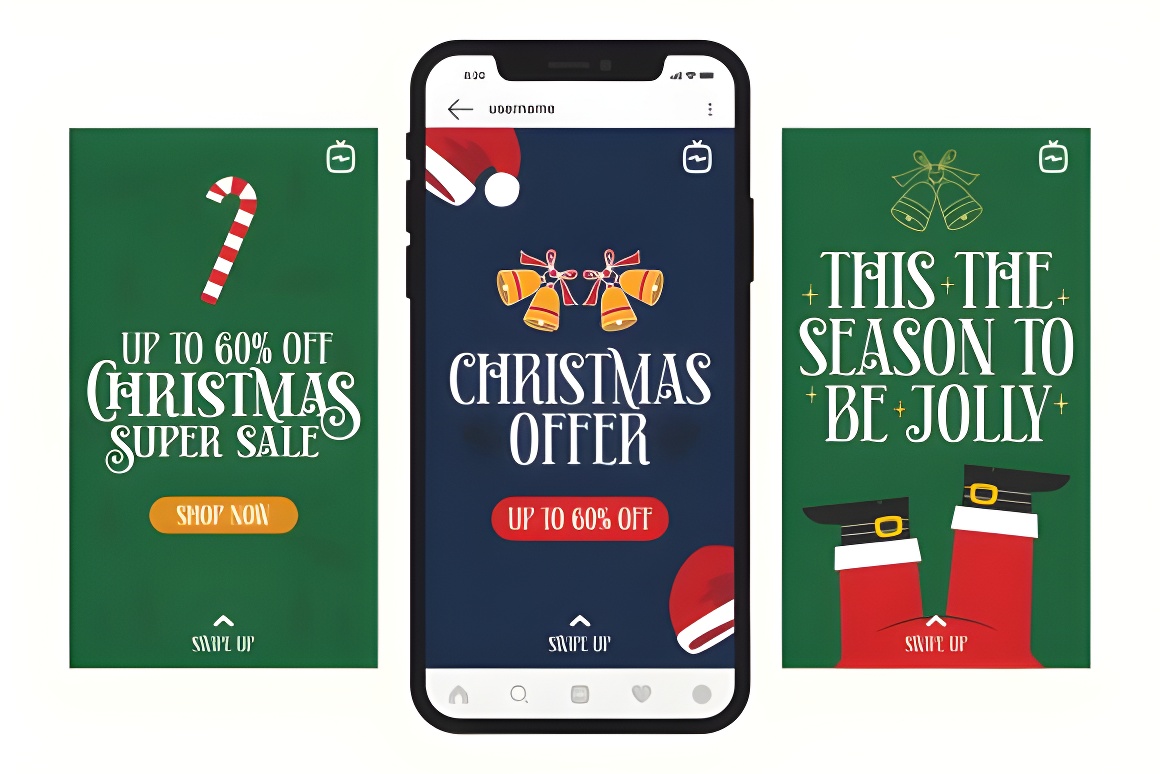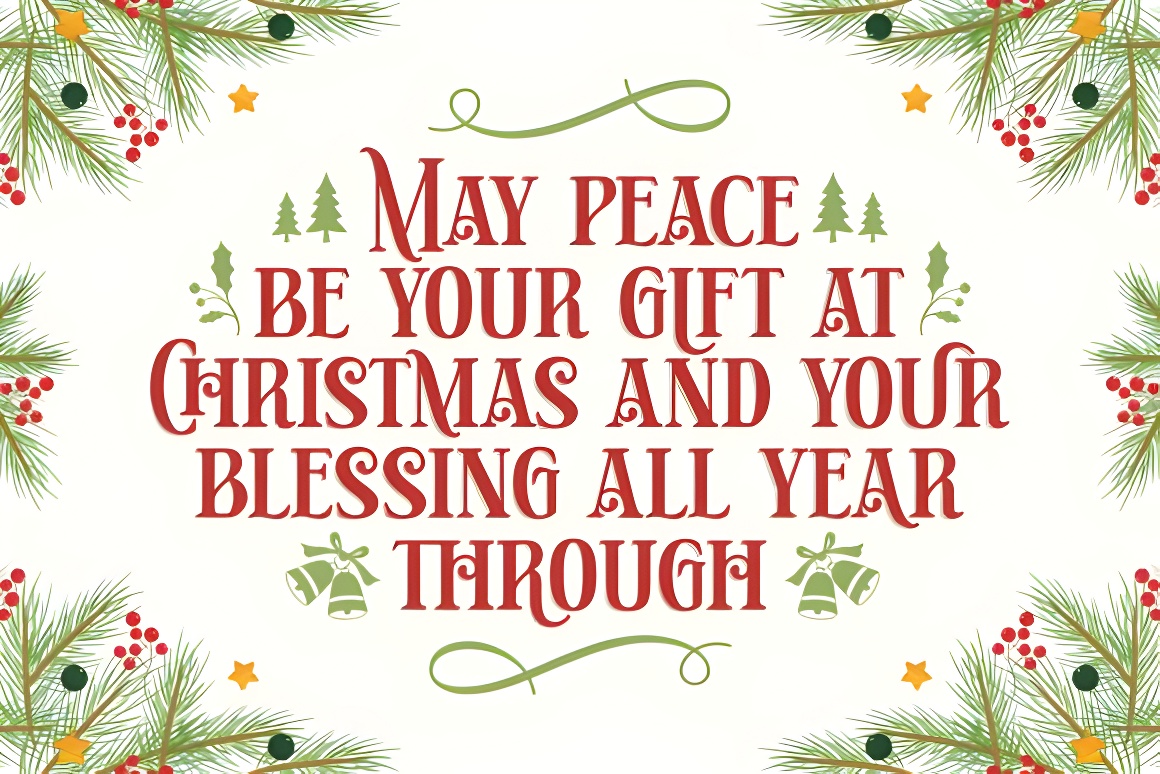
Festive Christmas Handwritten Font | Holiday Typography Download
Festive Christmas font combining modern elegance with playful holiday charm. Features sleek lines, decorative curls & PUA encoding for effortless access to glyphs and ligatures. Perfect for holiday greetings, cards, and seasonal designs!